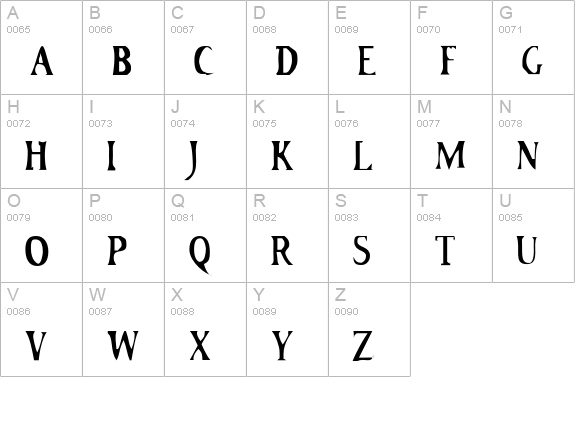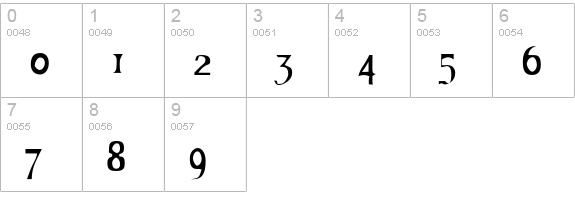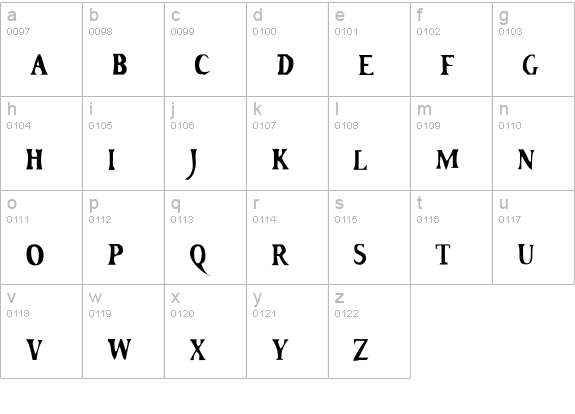
HateNoteSmallCapitals Font Details
Introducing HateNoteSmallCapitals, a captivating and bold font that exudes a powerful and commanding presence. This unique typeface is perfect for making a statement, whether it be in headlines, logos, or branding materials. Its sleek and modern design, coupled with its small capitals, adds a touch of sophistication and elegance to any project. HateNoteSmallCapitals is the epitome of versatility, effortlessly adapting to various contexts and themes. Its balanced proportions and sharp edges create a distinct visual impact, making it an ideal choice for those seeking to stand out from the crowd. But the best part? HateNoteSmallCapitals is absolutely free! That's right, this remarkable font can be freely downloaded at FontsMarket.com. Say goodbye to spending exorbitant amounts on premium fonts when you can have this gem at no cost. So why wait? Elevate your designs with HateNoteSmallCapitals and make a lasting impression. Whether you're a professional designer or a creative enthusiast, this font is bound to become an essential tool in your typographic arsenal. Download it today and let your creativity soar to new heights.